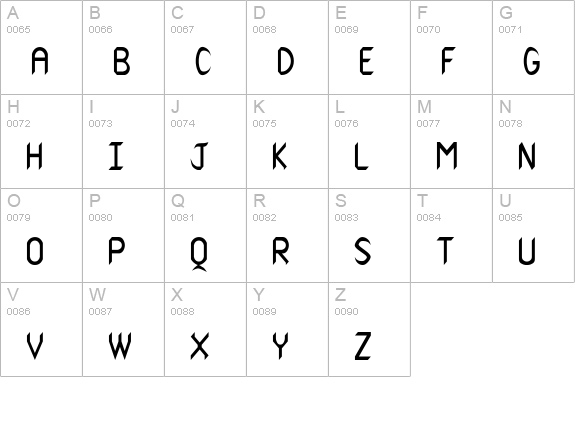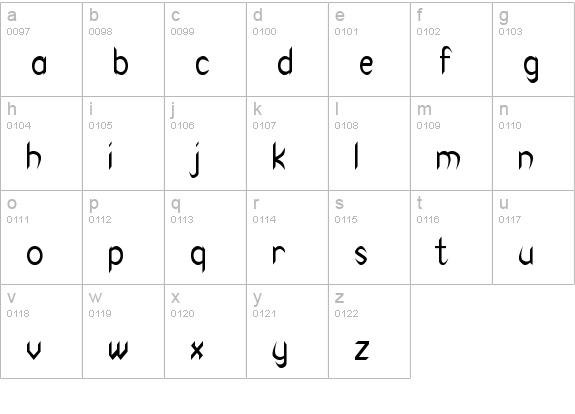
The Rscanaith Th font is a beautiful and elegant typeface that exudes sophistication and charm. With its sleek lines and graceful curves, this font is perfect for adding a touch of class to any project. Whether you're designing a wedding invitation, creating a logo, or crafting a stylish website, Rscanaith Th will elevate your work to new heights. What's even better is that this stunning font is completely free to download! You can easily access it at FontsMarket.com and start using it in your designs right away. Don't miss out on the opportunity to enhance your projects with the timeless beauty of Rscanaith Th font. Download it today and let your creativity shine!